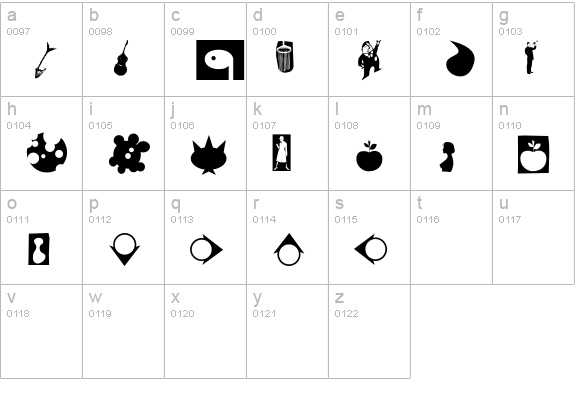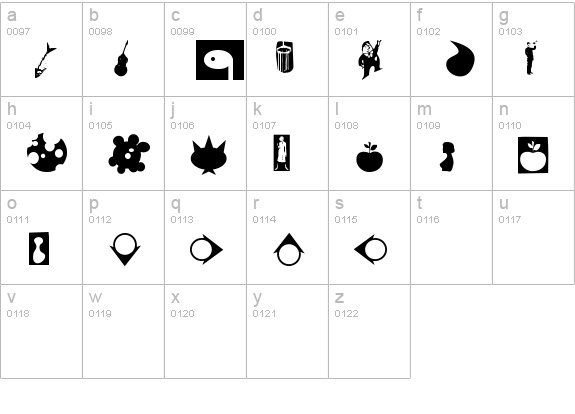
Mini font is a charming and versatile typeface that is perfect for a variety of design projects. With its clean lines and modern appeal, Mini font is sure to make your text stand out. Whether you're creating invitations, posters, or social media graphics, this font will add a touch of sophistication to your work. What's even better is that Mini font is completely free to download at FontsMarket.com. You can easily access this stylish font and start using it in your designs right away. Don't miss out on the opportunity to enhance your projects with the elegant and timeless Mini font. Download it now and elevate your design game to the next level.